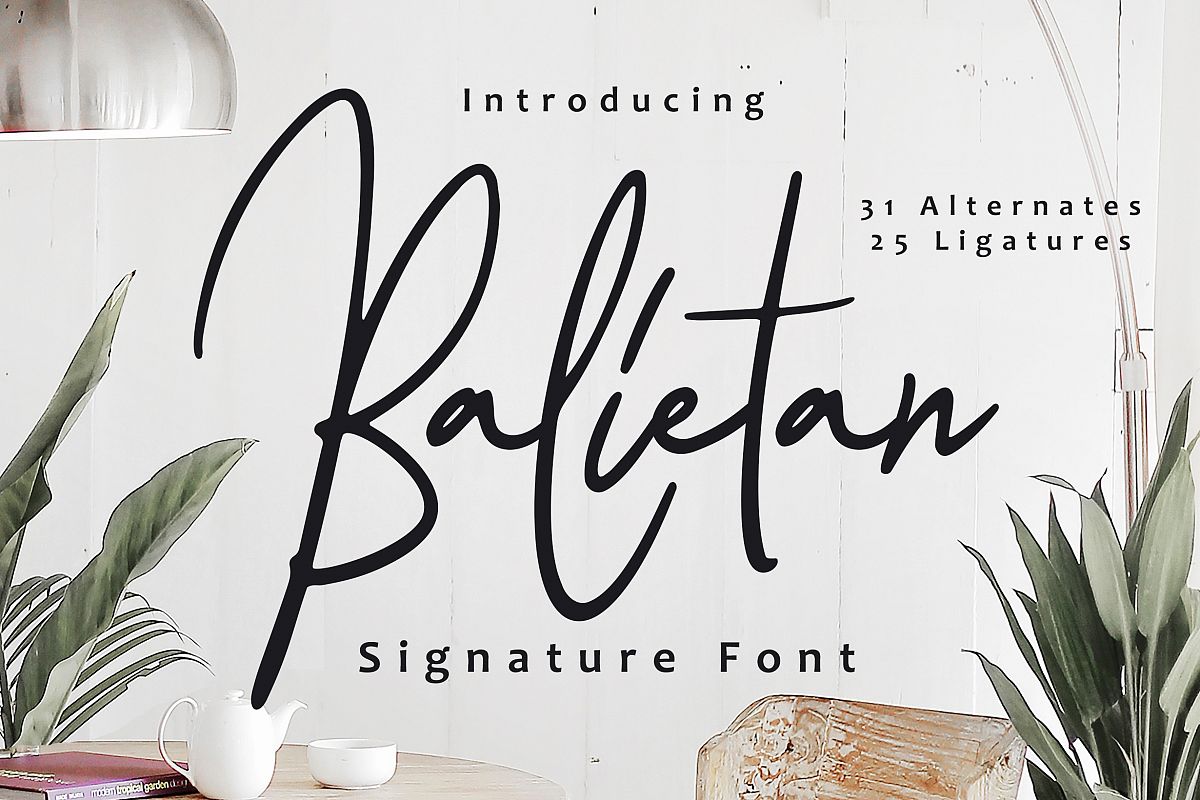
Balietan Signature Font
Balietan
Balietan Signature Font
Balietan Signature Font can be used for various media like special events, Christmas, Valentine, invitation, packaging, poster, wedding, movie titles, book titles, social media, logos, branding, and others.
• Basic Latin A-Z and a-z
• Symbols
• Stylistic Set
• PUA Encode
• Multilanguage Support